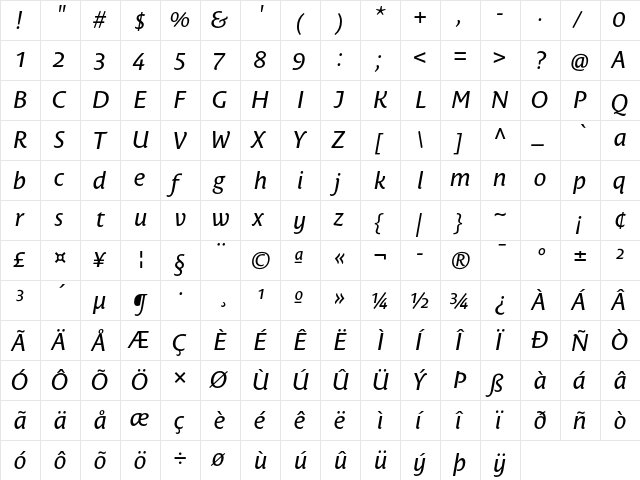
Costa Ptf Italic Font Preview
Costa Ptf Italic
Costa Ptf Italic Font Details
| Designer | Jean Francois Porchez |
Design Context for Costa Ptf Typeface
Costa Ptf offers clean, dependable letterforms without strong stylistic allegiance, making it a practical choice for designers who need flexibility. Its italic angle brings a sense of urgency and motion to the letterforms.
Pro Tip: Use Costa Ptf for emphasis, pull quotes, and subheadings where its slanted energy can add rhythm to the layout.